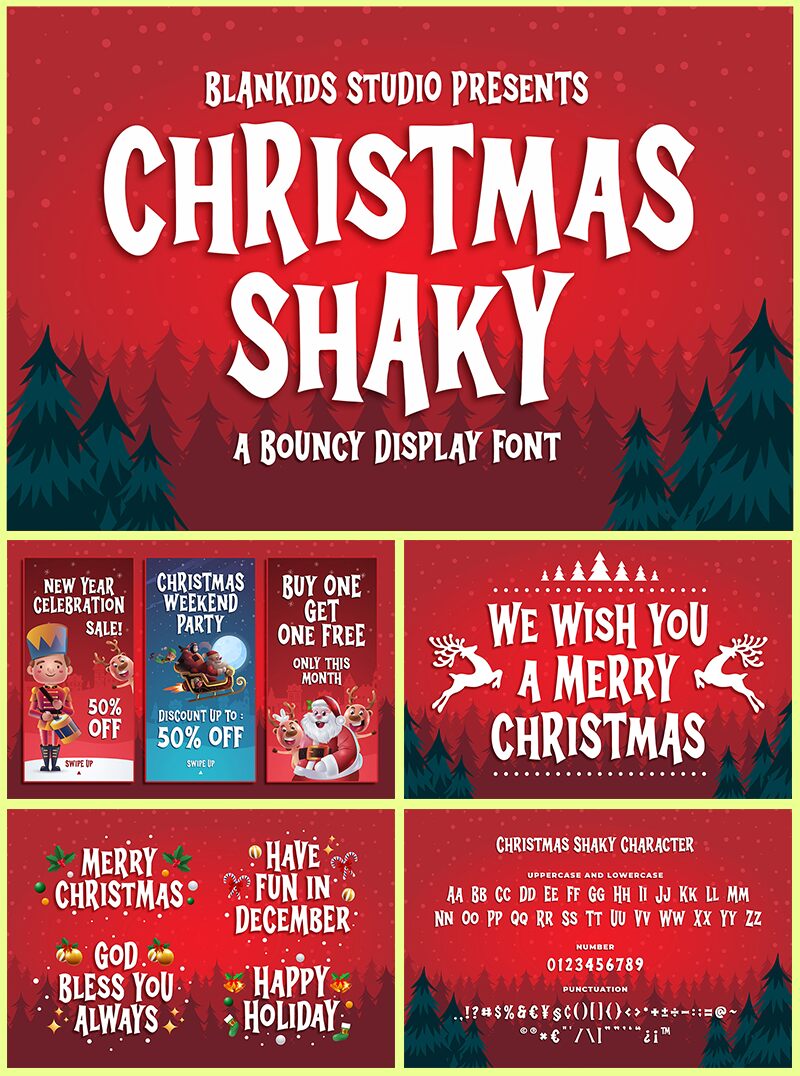
Christmas Shaky font by Blankids is a bold Christmas font imagination. With letterforms evoking seasonal coffee shop window paintings, you’ll feel as jolly as Santa reading the front of your card inspired by this typeface. Every curve and stroke speaks ‘Merry Christmas’ with vintage-inspired flavor as each letter comes to life.
Imagine this whimsical letterform on Christmas Cards, invitations to New Year's Eve parties, flyers and brochures for holiday destinations, or greeting cards. Use it on kids’ holiday activity sets, labels for wrapping paper boxes, ornamental decorations in graphic design software/websites/online apps – creativity knows no bounds!
Christmas Shaky by Blankids Studio